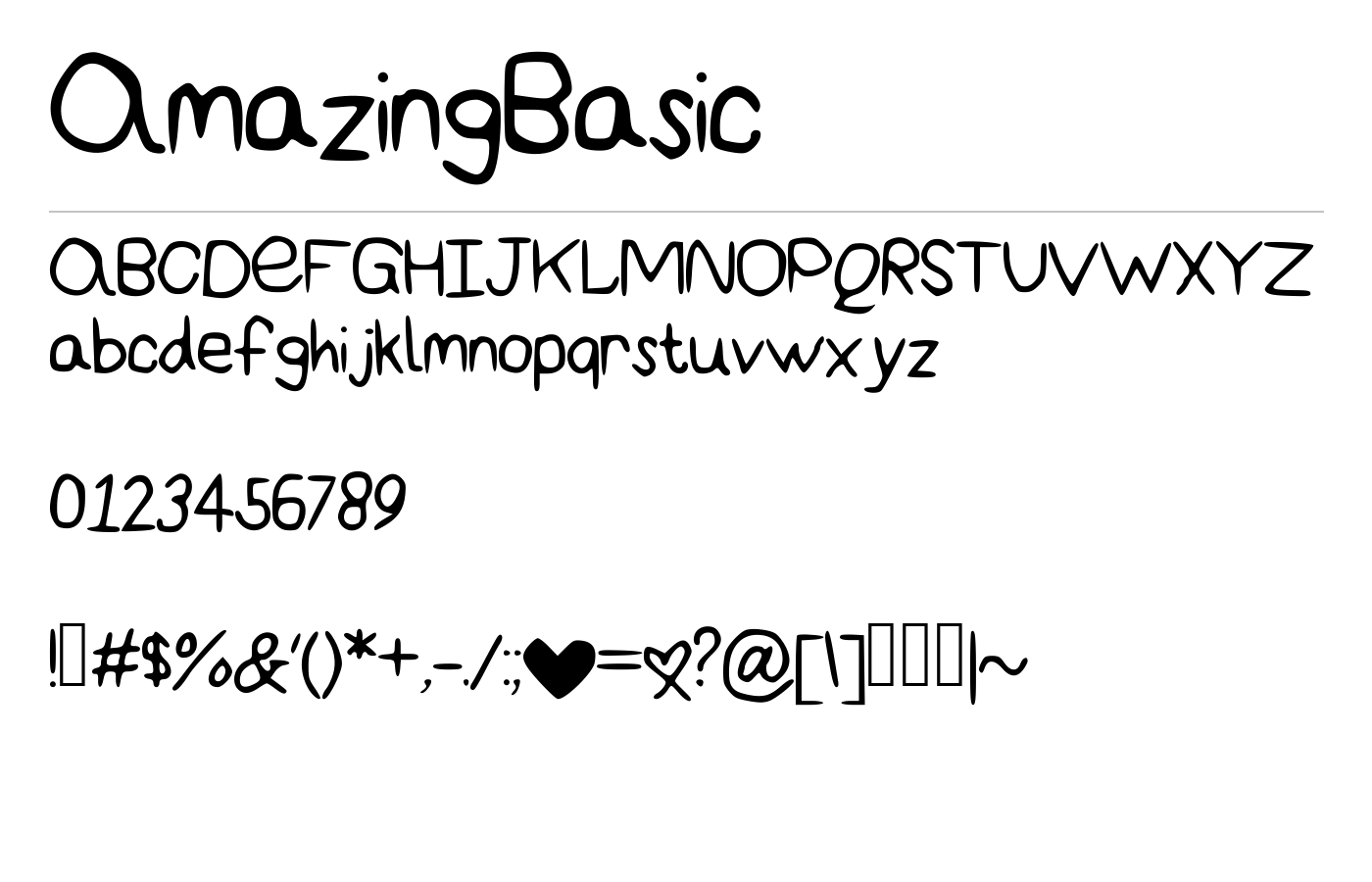
AmazingBasic is a playful, casual handwritten sans serif font with a lively and friendly character, featuring rounded, irregular letterforms and a moderate x-height for easy readability. Its light weight and smooth strokes make it perfect for informal designs, children's projects, and creative branding where a warm, approachable feel is desired. This font works well in logos, headlines, and whimsical editorial content that benefits from a unique, hand-crafted touch.
AmazingBasic Font
About AmazingBasic Font